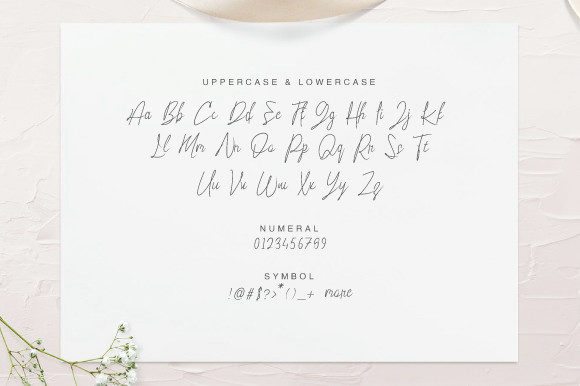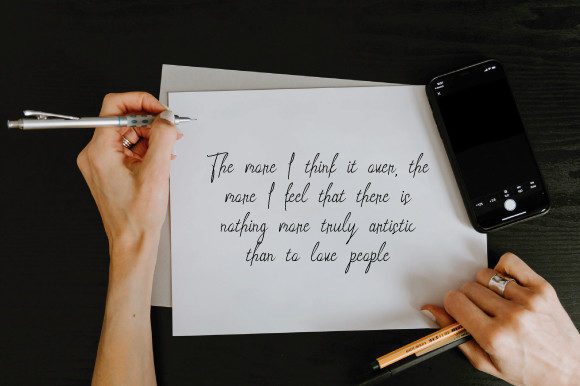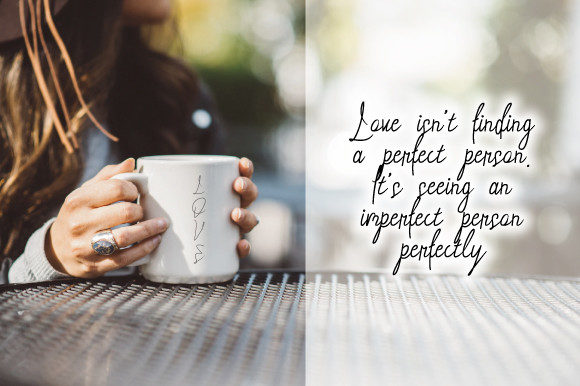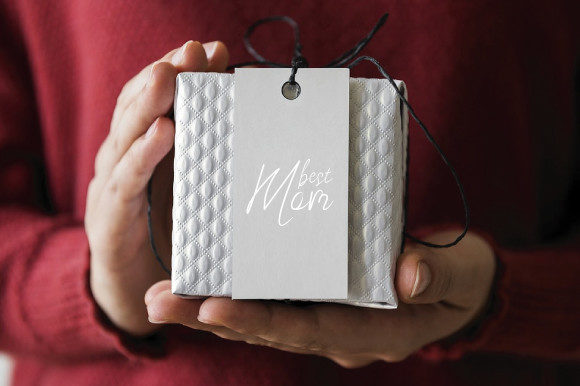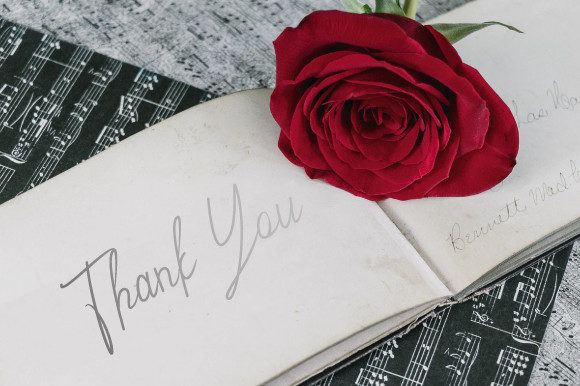
Discover the Charm of Abestuj Font: Elevate Your Designs with a Timeless Handwritten Style
Are you on the hunt for a font that adds a personal touch to your designs? Look no further than Abestuj Font, a lovely and timeless handwritten font that is sure to capture the hearts of designers and crafters alike. With its unique and beautiful touch, Abestuj is the perfect choice for creating eye-catching logos, branding, and quotes that stand out from the crowd.
The Unique Charm of Abestuj Font
Abestuj Font boasts a distinctive handwritten style that exudes warmth and personality. Every letter has been carefully crafted to showcase a unique and beautiful touch, making it a true gem in the world of typography. Whether you’re designing a logo, creating a brand identity, or crafting a compelling quote, Abestuj Font is sure to bring your design to life.
Why Choose Abestuj Font?
So, what sets Abestuj Font apart from other fonts? Here are just a few reasons why designers and crafters love working with this lovely font:
- Timeless appeal: Abestuj Font has a classic, timeless quality that never goes out of style. Its handwritten charm is sure to evoke emotions and create a lasting impression.
- Unique character: Every letter in Abestuj Font has been carefully designed to showcase a unique and beautiful touch. This means that your designs will stand out from the crowd and capture the attention of your audience.
- Versatility: Abestuj Font is incredibly versatile, making it perfect for a wide range of design projects. From logos and branding to quotes and social media graphics, this font can handle it all.
- Ease of use: Abestuj Font is easy to read and works beautifully in a variety of sizes and resolutions. This makes it a great choice for designers who need to create high-quality designs quickly and efficiently.
Using Abestuj Font in Your Designs
Abestuj Font is incredibly easy to use and can be incorporated into a wide range of design projects. Here are a few ideas to get you started:
- Logos and branding: Create a lasting impression with a custom logo or brand identity that showcases the unique charm of Abestuj Font.
- Quotes and social media graphics: Add a personal touch to your quotes and social media graphics with Abestuj Font. Its handwritten style is sure to capture the attention of your audience and leave a lasting impression.
- Stationery and invitations: Add a touch of elegance and sophistication to your stationery and invitations with Abestuj Font. Its timeless appeal is sure to make your designs feel special and unique.
Tips and Tricks for Working with Abestuj Font
Here are a few tips and tricks to help you get the most out of Abestuj Font:
- Experiment with different sizes and colors: Don’t be afraid to experiment with different sizes and colors to find the perfect combination for your design.
- Pair with other fonts: Abestuj Font pairs beautifully with other fonts. Try pairing it with a clean sans-serif font for a striking contrast.
- Use it sparingly: Abestuj Font is a statement font, so use it sparingly to add emphasis and create visual interest.
Abestuj Font is a truly special font that is sure to capture the hearts of designers and crafters alike. Its unique and beautiful touch, combined with its timeless appeal and versatility, make it the perfect choice for a wide range of design projects. Whether you’re creating a logo, crafting a quote, or designing a brand identity, Abestuj Font is sure to bring your design to life. So why wait? Discover the charm of Abestuj Font today and elevate your designs to new heights!